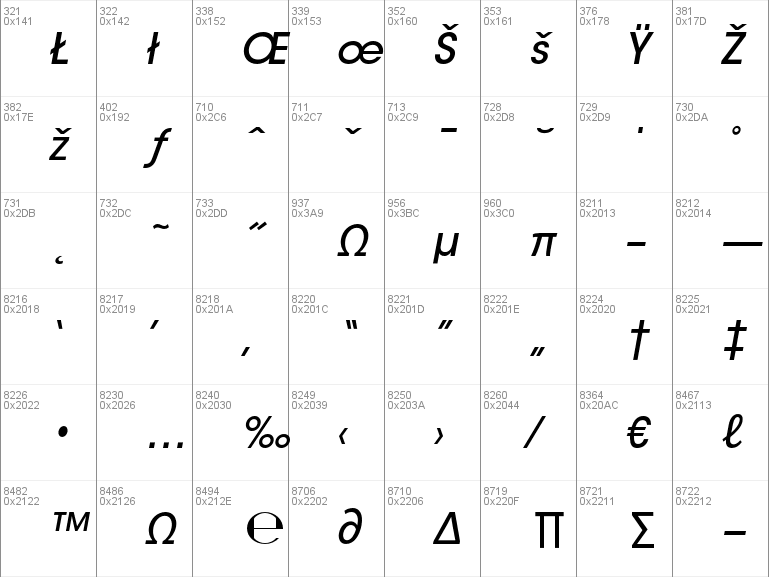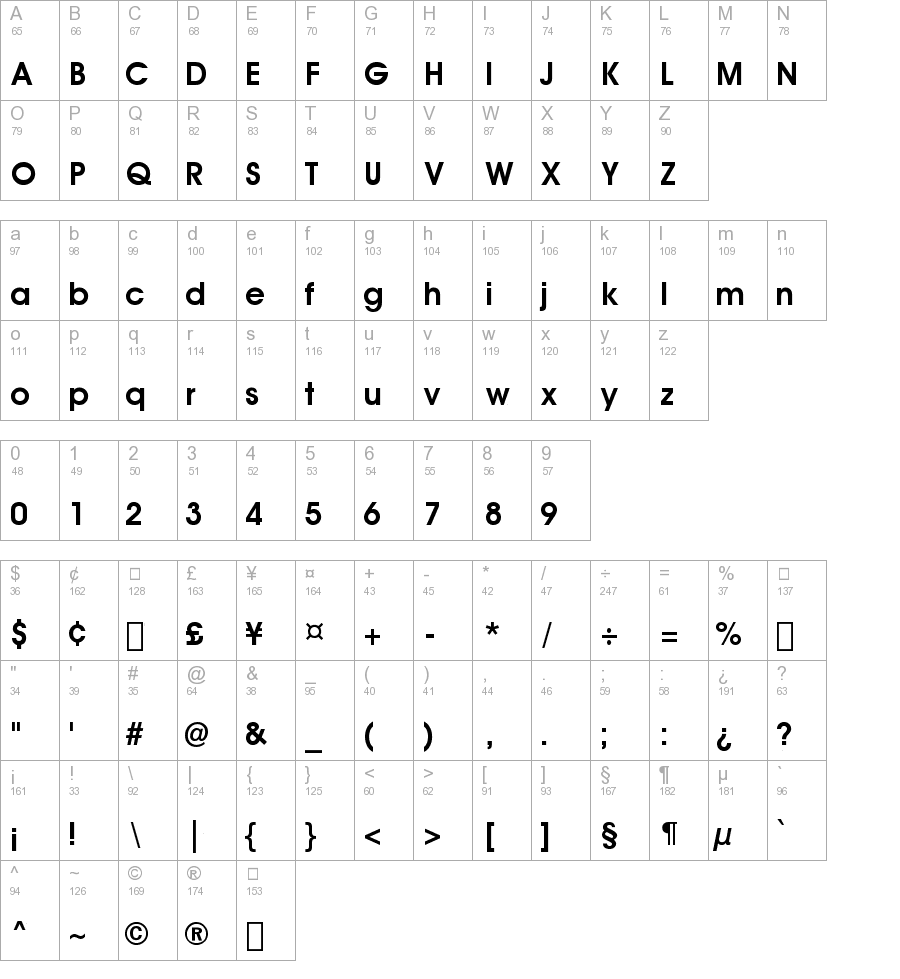
Itc Avant Garde Google Font . can i find itc avant garde on google fonts? Useful if you also target devices that are not a pc or mac. Download the zip file for free and see the sample. in any case, itc avant garde is available for purchase as a webfont through myfonts and it would be very easy for you to implement it in your css. itc avant garde gothic is a modernist sans serif typeface designed by various artists and published by itc. tex gyre adventor is a really nice replacement for both avant garde and century gothic. It offers 20 styles and family. itc avant garde gothic is a gothic font with 16 styles, including book, bold, condensed, and oblique. See examples of font pairings,. find out how to use itc avant garde gothic, a font inspired by the bauhaus movement, with other fonts in your design projects. Unfortunately, google fonts doesn’t make the original version of itc avant garde available to its.
tex gyre adventor is a really nice replacement for both avant garde and century gothic. itc avant garde gothic is a gothic font with 16 styles, including book, bold, condensed, and oblique. Unfortunately, google fonts doesn’t make the original version of itc avant garde available to its. can i find itc avant garde on google fonts? itc avant garde gothic is a modernist sans serif typeface designed by various artists and published by itc. Download the zip file for free and see the sample. Useful if you also target devices that are not a pc or mac. in any case, itc avant garde is available for purchase as a webfont through myfonts and it would be very easy for you to implement it in your css. See examples of font pairings,. find out how to use itc avant garde gothic, a font inspired by the bauhaus movement, with other fonts in your design projects.
Itc Avant Garde Google Font itc avant garde gothic is a gothic font with 16 styles, including book, bold, condensed, and oblique. Unfortunately, google fonts doesn’t make the original version of itc avant garde available to its. itc avant garde gothic is a modernist sans serif typeface designed by various artists and published by itc. Useful if you also target devices that are not a pc or mac. itc avant garde gothic is a gothic font with 16 styles, including book, bold, condensed, and oblique. tex gyre adventor is a really nice replacement for both avant garde and century gothic. It offers 20 styles and family. find out how to use itc avant garde gothic, a font inspired by the bauhaus movement, with other fonts in your design projects. Download the zip file for free and see the sample. See examples of font pairings,. in any case, itc avant garde is available for purchase as a webfont through myfonts and it would be very easy for you to implement it in your css. can i find itc avant garde on google fonts?
Identifont ITC Avant Garde Bold Itc Avant Garde Google Font itc avant garde gothic is a modernist sans serif typeface designed by various artists and published by itc. itc avant garde gothic is a gothic font with 16 styles, including book, bold, condensed, and oblique. tex gyre adventor is a really nice replacement for both avant garde and century gothic. find out how to use itc. Itc Avant Garde Google Font.
Fontscape Home > Dimensions > Fixed width > Sansserif Itc Avant Garde Google Font It offers 20 styles and family. can i find itc avant garde on google fonts? itc avant garde gothic is a gothic font with 16 styles, including book, bold, condensed, and oblique. tex gyre adventor is a really nice replacement for both avant garde and century gothic. Unfortunately, google fonts doesn’t make the original version of itc. Itc Avant Garde Google Font.
Itc Avant Garde Free Font Itc Avant Garde Gothic Medium Is A Medium Itc Avant Garde Google Font find out how to use itc avant garde gothic, a font inspired by the bauhaus movement, with other fonts in your design projects. Download the zip file for free and see the sample. itc avant garde gothic is a modernist sans serif typeface designed by various artists and published by itc. It offers 20 styles and family. See. Itc Avant Garde Google Font.
Itc avant garde gothic google fonts profiletata Itc Avant Garde Google Font tex gyre adventor is a really nice replacement for both avant garde and century gothic. Unfortunately, google fonts doesn’t make the original version of itc avant garde available to its. itc avant garde gothic is a gothic font with 16 styles, including book, bold, condensed, and oblique. Useful if you also target devices that are not a pc. Itc Avant Garde Google Font.
ITC Avant Garde Gothic Demi font Itc Avant Garde Google Font can i find itc avant garde on google fonts? Unfortunately, google fonts doesn’t make the original version of itc avant garde available to its. See examples of font pairings,. Useful if you also target devices that are not a pc or mac. itc avant garde gothic is a modernist sans serif typeface designed by various artists and published. Itc Avant Garde Google Font.
Download free ITC Avant Garde Gothic Std font, free ITCAvantGardeStd Itc Avant Garde Google Font Download the zip file for free and see the sample. Unfortunately, google fonts doesn’t make the original version of itc avant garde available to its. See examples of font pairings,. Useful if you also target devices that are not a pc or mac. itc avant garde gothic is a modernist sans serif typeface designed by various artists and published. Itc Avant Garde Google Font.
5 AvantGarde Font For Mac Images AvantGarde Font, ITC AvantGarde Itc Avant Garde Google Font It offers 20 styles and family. See examples of font pairings,. can i find itc avant garde on google fonts? itc avant garde gothic is a modernist sans serif typeface designed by various artists and published by itc. in any case, itc avant garde is available for purchase as a webfont through myfonts and it would be. Itc Avant Garde Google Font.
Itc avant garde gothic google fonts profiletata Itc Avant Garde Google Font It offers 20 styles and family. itc avant garde gothic is a modernist sans serif typeface designed by various artists and published by itc. itc avant garde gothic is a gothic font with 16 styles, including book, bold, condensed, and oblique. Useful if you also target devices that are not a pc or mac. See examples of font. Itc Avant Garde Google Font.